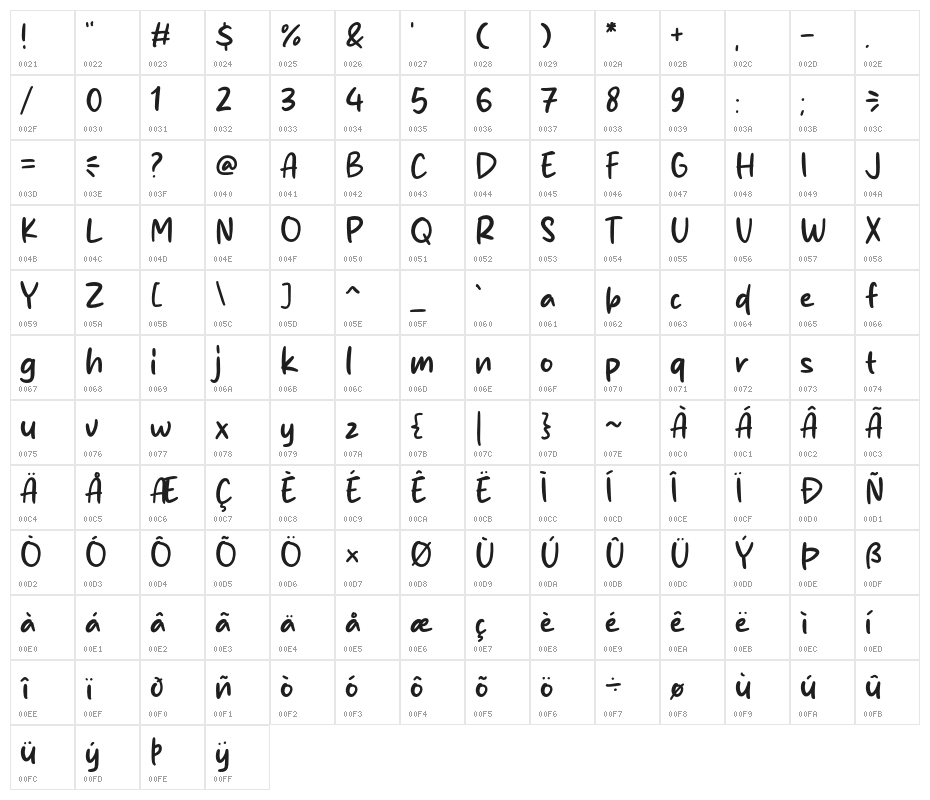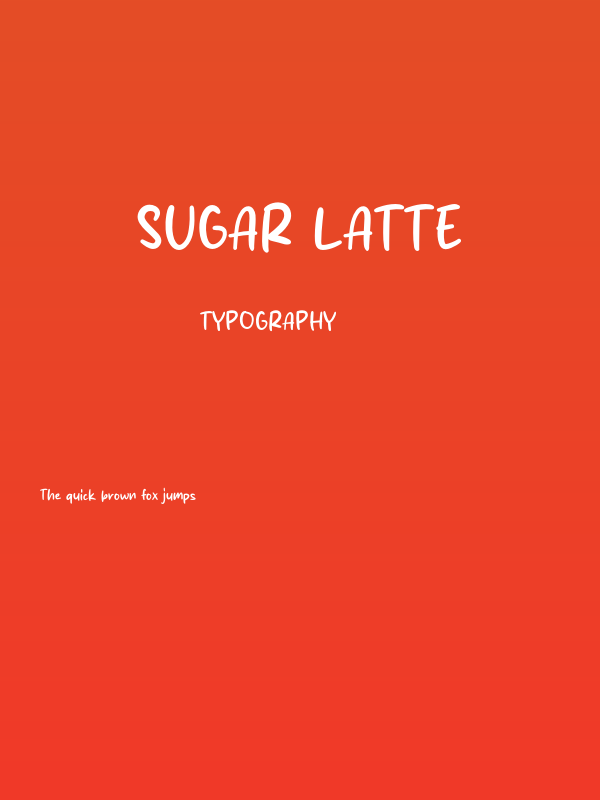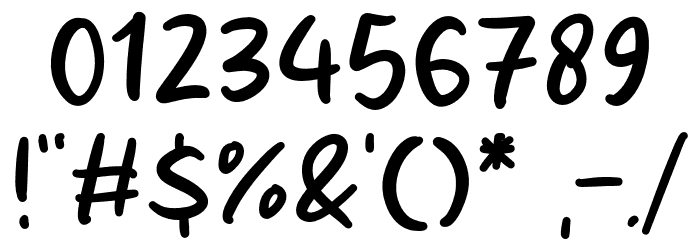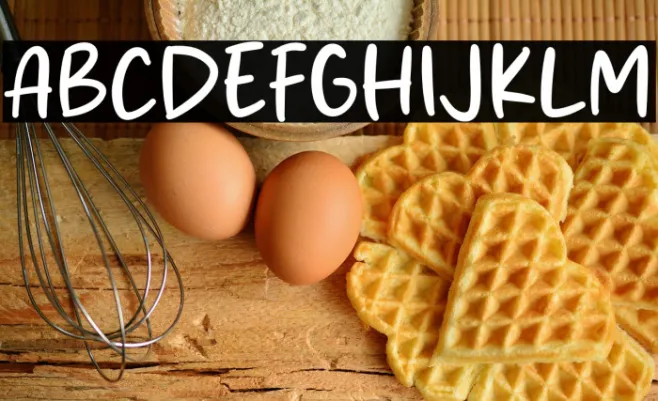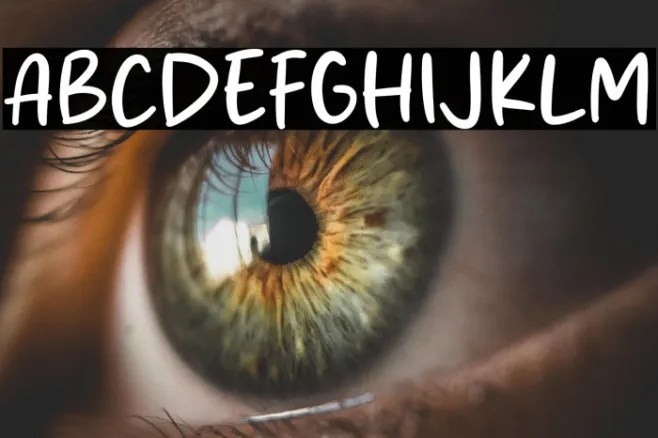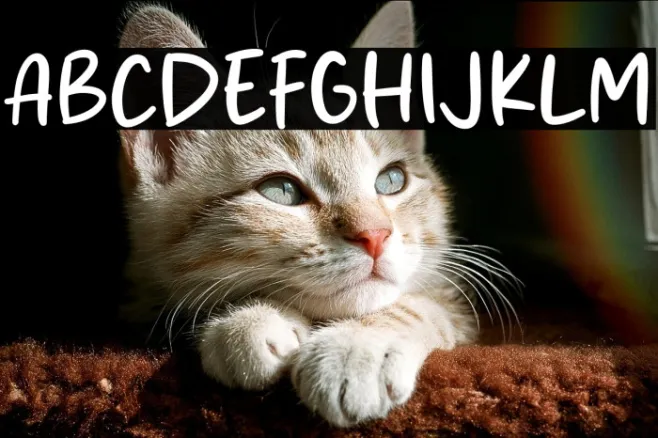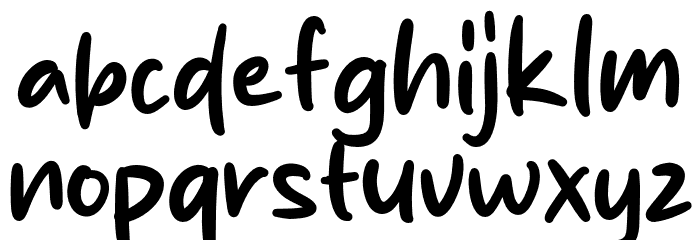
Sugar Latte Font
Sugar Latte Description
This font exudes a playful and casual handwritten style, characterized by its smooth, rounded strokes and slightly irregular letterforms that give it a friendly and approachable appearance. The uppercase and lowercase letters maintain a consistent flow, while the numerals and special characters integrate seamlessly into the overall design. Its informal nature makes it ideal for projects that require a personal touch, such as greeting cards, invitations, or social media graphics. The font's legibility is enhanced by its medium contrast and balanced character spacing, ensuring readability across various applications.
| Proposed Projects | Ideal for greeting cards, invitations, social media graphics, and personal branding. |